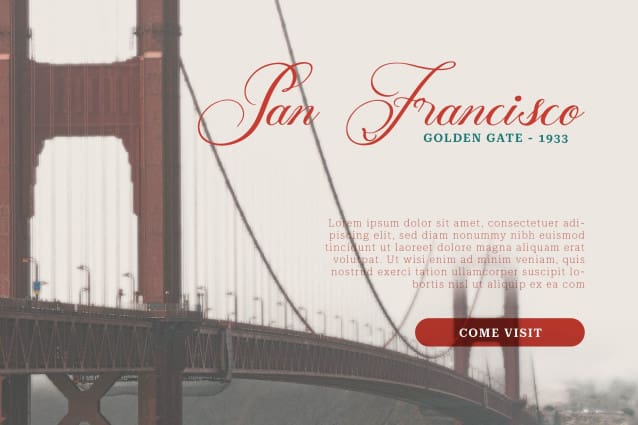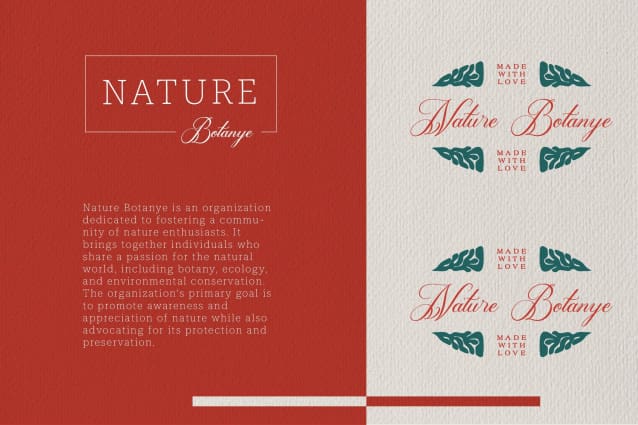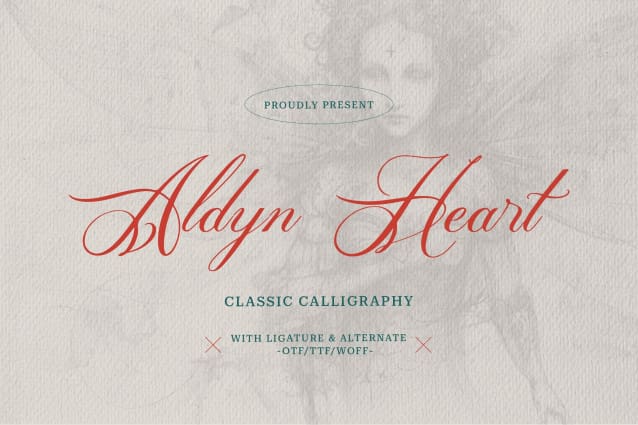
Aldyn Heart Font
Aldyn Heart Font – Calligraphy Font, from Denustudios, suitable for any projects such as: logos, branding projects, homeware designs, product packaging, mugs, quotes, posters, shopping bags, t-shirts, book covers, name card, invitation cards, greeting cards, label, photography, watermark, special events, and all your other lovely projects that need a beautiful script taste.